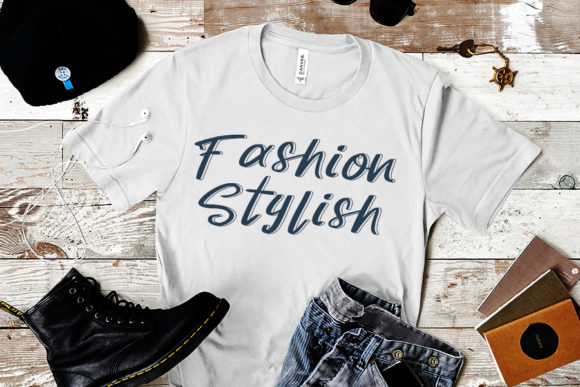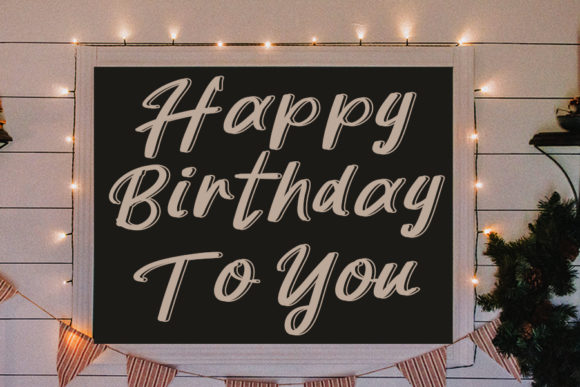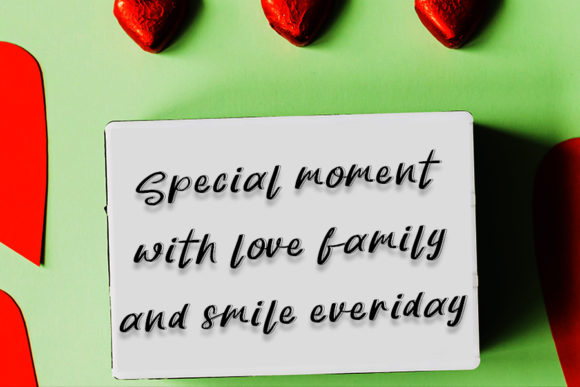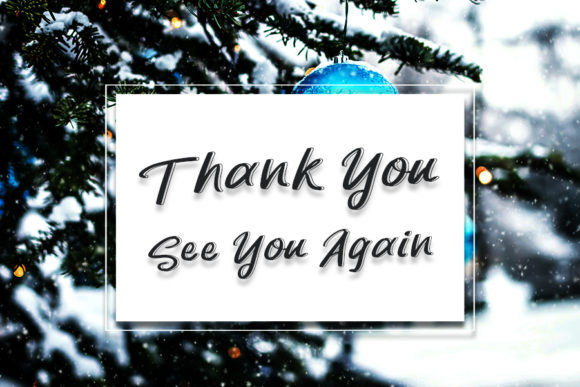
Introducing Hello Friday Font: The Sweet and Cursive Handwritten Font for Your Design Needs
Are you tired of using the same old fonts for your design projects? Do you want to add a touch of sweetness and romance to your creations? Look no further than the Hello Friday Font! This beautiful, cursive handwritten font is perfect for designers and crafters who want to add a personal and whimsical touch to their work.
The Characteristics of Hello Friday Font
Hello Friday Font is a sweet and cursive handwritten font that is sure to capture the hearts of designers and crafters alike. Its gentle and flowing lines make it perfect for a variety of design ideas, from wedding invitations and party decorations to social media graphics and blog posts. The font’s unique characteristics include:
- Sweet and cursive handwritten style
- Gentle and flowing lines
- Perfect for a variety of design ideas
- Adds a joyful and romantic touch to projects
Why Use Hello Friday Font?
So, why should you use Hello Friday Font for your design projects? Here are just a few reasons:
- Uniqueness: Hello Friday Font is a unique and distinctive font that will set your designs apart from the rest.
- Emotional Connection: The font’s sweet and cursive style creates an emotional connection with your audience, making your designs more relatable and engaging.
- Versatility: Hello Friday Font is versatile and can be used for a wide range of design projects, from digital to print.
Design Ideas Using Hello Friday Font
Hello Friday Font is perfect for a variety of design ideas, including:
- Wedding Invitations: Add a touch of romance and elegance to your wedding invitations with Hello Friday Font.
- Party Decorations: Create beautiful party decorations, such as banners, garlands, and cupcake toppers, using Hello Friday Font.
- Social Media Graphics: Use Hello Friday Font to create eye-catching social media graphics, such as quotes, posters, and ads.
- Blog Posts: Add a personal touch to your blog posts with Hello Friday Font, making them more engaging and relatable to your readers.
Tips for Using Hello Friday Font
Here are some tips for using Hello Friday Font:
- Pair with Other Fonts: Pair Hello Friday Font with other fonts to create a unique and interesting contrast.
- Use for Headings: Use Hello Friday Font for headings and titles to add a touch of elegance and sophistication.
- Keep it Simple: Keep your design simple and clean to let Hello Friday Font shine.
In conclusion, Hello Friday Font is a beautiful and versatile font that is perfect for designers and crafters who want to add a touch of sweetness and romance to their designs. With its unique characteristics, ease of use, and versatility, Hello Friday Font is sure to become a favorite in your design toolkit. So, why not give it a try and see the difference it can make in your designs?